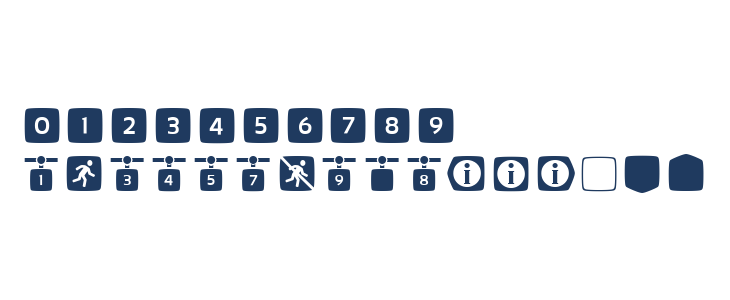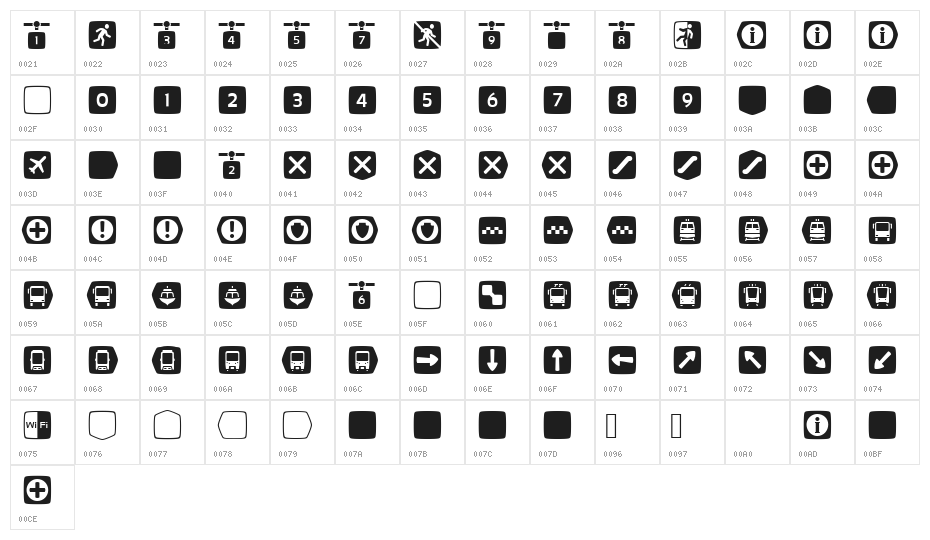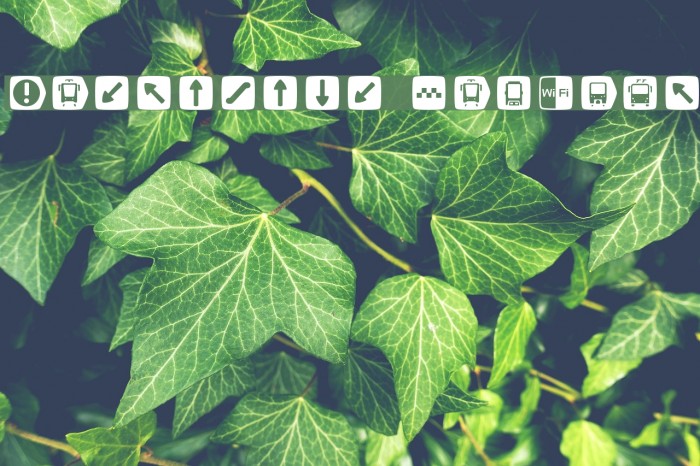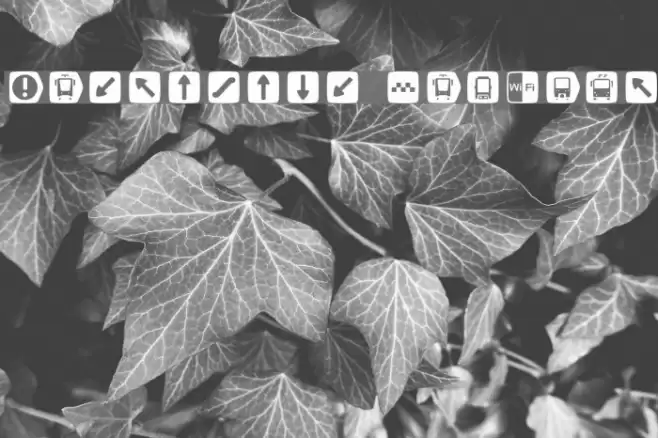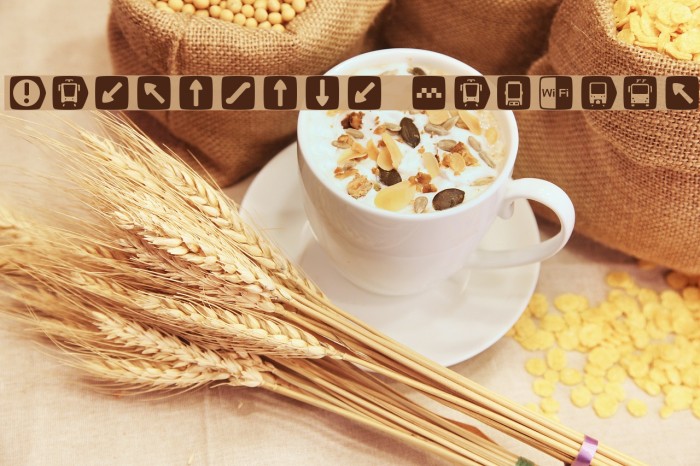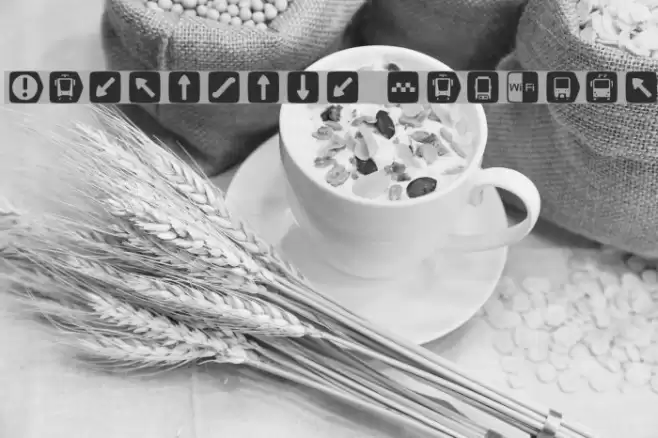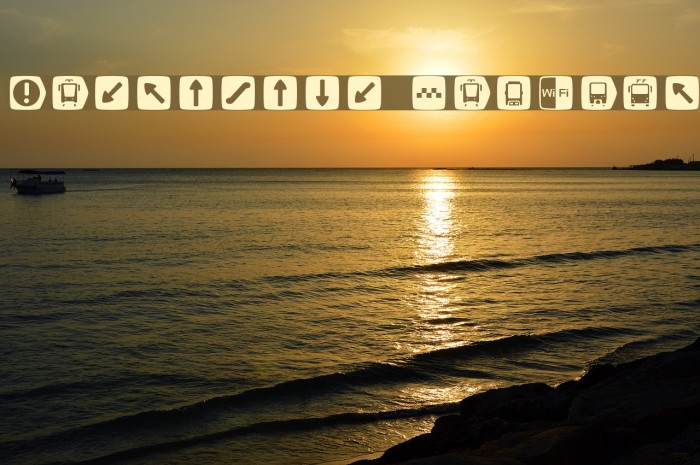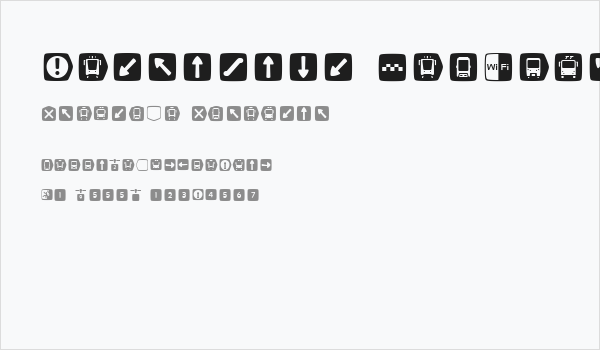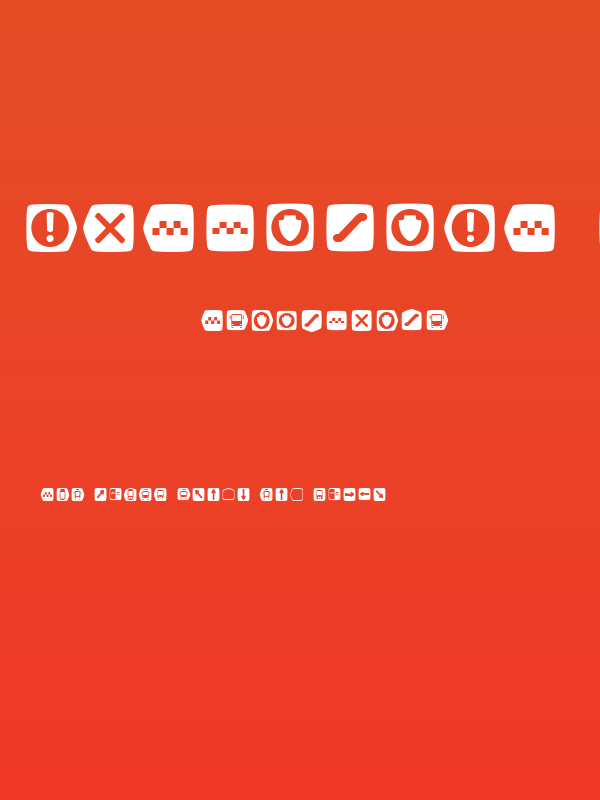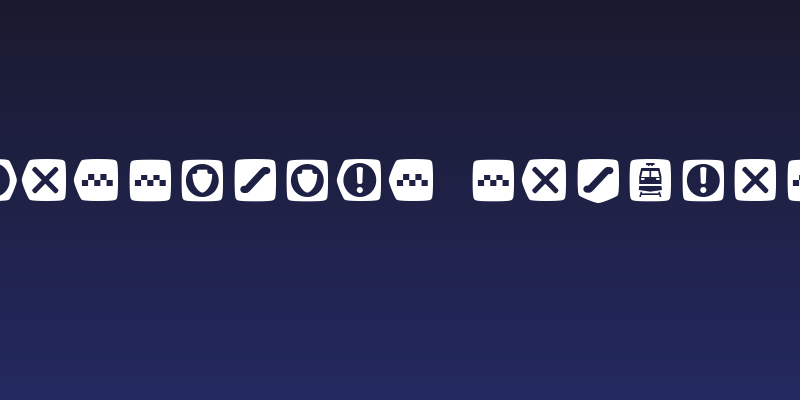
MetroFont Regular Font
MetroFont Regular Description
This collection features a series of symbols and icons commonly associated with transportation and navigation. Each character is enclosed within a rounded square, providing a uniform and cohesive appearance. The icons include various forms of public transport, directional arrows, and other symbols like Wi-Fi and exclamation marks. The design is highly functional, focusing on clarity and ease of recognition, making it ideal for signage and wayfinding systems. The consistent use of bold lines and simple shapes ensures that the icons are easily distinguishable from a distance.
| Use Case | Signage, Wayfinding, Informational displays |
| Proposed Projects | Ideal for public transportation signage, wayfinding systems, and informational displays in urban environments. |